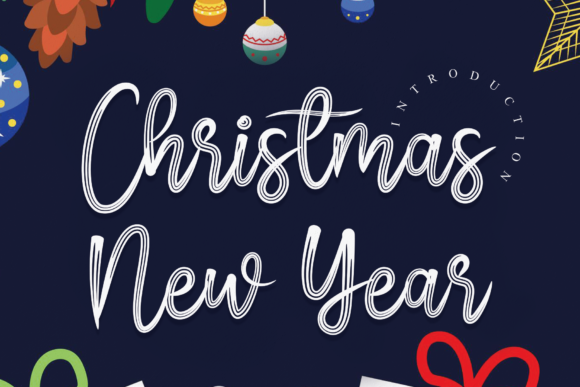
Introducing Christmas New Year Font: The Perfect Handwritten Touch for Your Designs
Are you looking for a font that adds a touch of elegance and delicacy to your designs? Look no further than the Christmas New Year Font, a beautiful handwritten font that features sweet and delicate swashes. This stunning font is perfect for designers and crafters who want to add a personal touch to their work, whether it’s for wedding invitations, thank you cards, quotes, greeting cards, logos, business cards, or any other design that needs a handwritten touch.
What Makes Christmas New Year Font So Special?
Christmas New Year Font is an elegant and dainty handwritten font that is sure to impress. Its sweet and delicate swashes add a touch of sophistication to any design, making it perfect for a variety of projects. The font is designed to look like it was written by hand, with a personal and intimate feel that is hard to replicate with digital fonts.
Uses for Christmas New Year Font
Christmas New Year Font is a versatile font that can be used for a wide range of projects. Here are some ideas to get you started:
- Wedding Invitations: Add a touch of elegance to your wedding invitations with Christmas New Year Font. The font’s delicate swashes and handwritten feel make it perfect for formal and informal wedding invitations alike.
- Thank You Cards: Show your appreciation with a beautiful thank you card featuring Christmas New Year Font. The font’s sweet and delicate swashes make it perfect for expressing gratitude.
- Quotes: Add a touch of inspiration to your quotes with Christmas New Year Font. The font’s elegant and dainty feel make it perfect for sharing motivational and uplifting quotes.
- Greeting Cards: Create beautiful greeting cards for any occasion with Christmas New Year Font. The font’s handwritten feel and delicate swashes make it perfect for birthdays, holidays, and other celebrations.
- Logos: Add a personal touch to your logo with Christmas New Year Font. The font’s elegant and sophisticated feel make it perfect for businesses that want to stand out.
- Business Cards: Create beautiful business cards with Christmas New Year Font. The font’s delicate swashes and handwritten feel make it perfect for professionals who want to make a lasting impression.
Why Choose Christmas New Year Font?
There are many fonts to choose from, but Christmas New Year Font stands out for several reasons:
- Unique and Elegant: Christmas New Year Font is a unique and elegant font that will set your designs apart from the rest.
- Handwritten Feel: The font’s handwritten feel and delicate swashes make it perfect for adding a personal touch to your designs.
- Versatile: Christmas New Year Font is a versatile font that can be used for a wide range of projects, from wedding invitations to business cards.
Tips for Using Christmas New Year Font
Here are some tips for using Christmas New Year Font:
- Use it for Headings: Christmas New Year Font is perfect for headings and titles. Use it to add a touch of elegance to your designs.
- Experiment with Colors: The font looks great in a variety of colors. Experiment with different colors to find the one that works best for your design.
- Pair it with Other Fonts: Christmas New Year Font can be paired with other fonts to create a unique and interesting look.
Christmas New Year Font is a beautiful and elegant handwritten font that is perfect for designers and crafters who want to add a personal touch to their work. With its sweet and delicate swashes, this font is sure to impress. Whether you’re creating wedding invitations, thank you cards, quotes, greeting cards, logos, business cards, or any other design, Christmas New Year Font is the perfect choice.